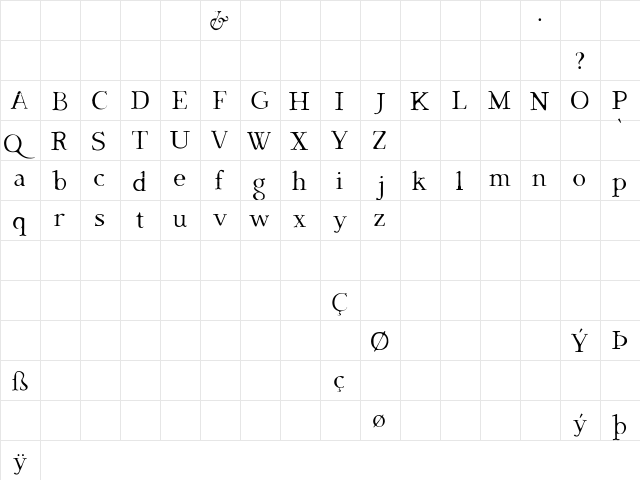
Dark & Black Regular
Design Context for Dark & Black Typeface
Dark & Black takes a measured approach to typography — its balanced proportions and neutral character make it a reliable workhorse for both digital and print work.